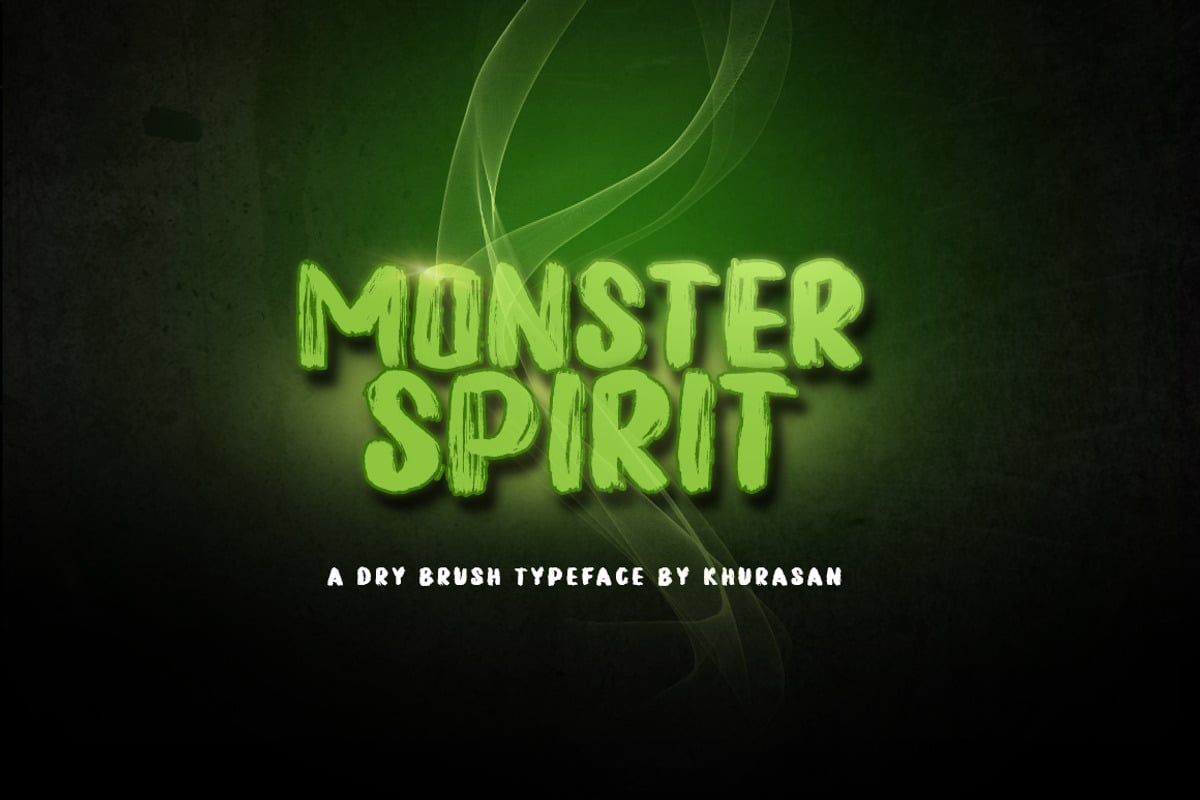
Monster Spirit Brush Font
Monster Spirit delivers fresh handwritten brush typography with an elegant vintage character perfect for spooky designs. This distinctive script font combines classic brush lettering with a mysterious monster-themed aesthetic. The typeface features comprehensive character support including multi-lingual compatibility, currency symbols, numerals, and complete punctuation sets. File Included: Monster Spirit.ttf Monster Spirit.otf Thank you for checking and I hope you enjoy it. Always put your hear...